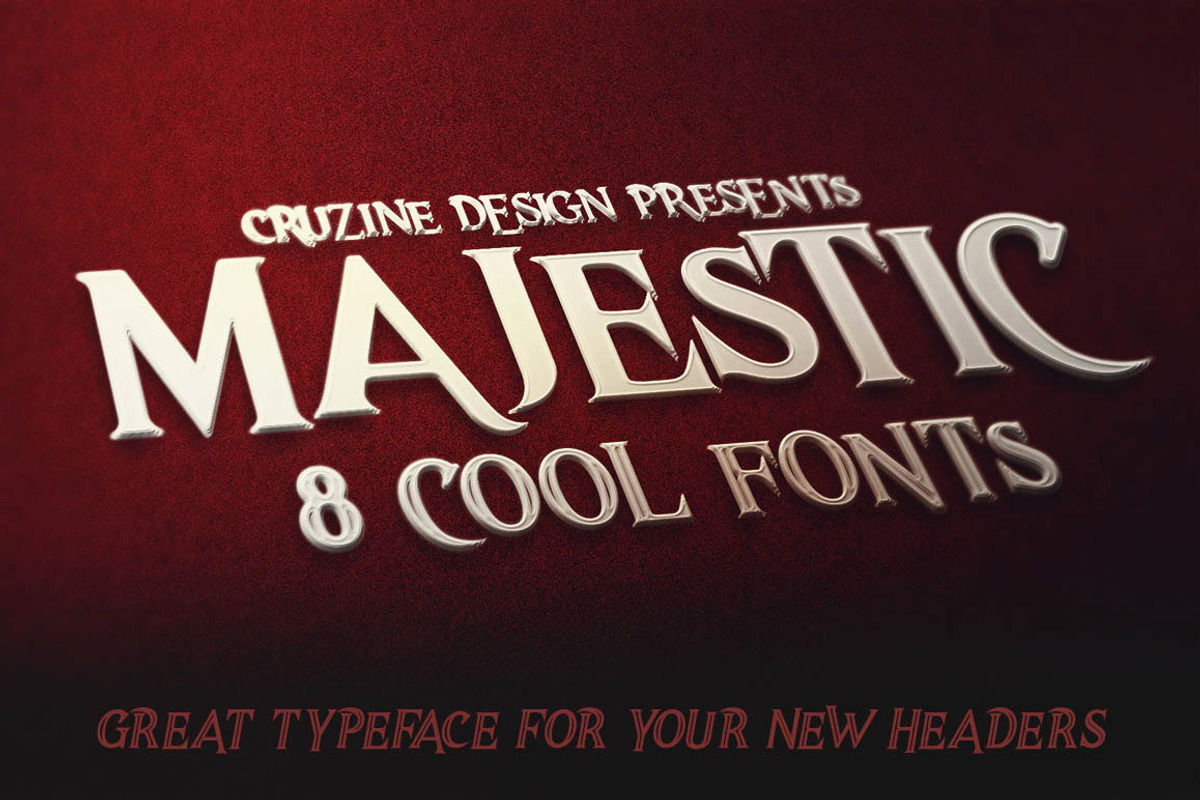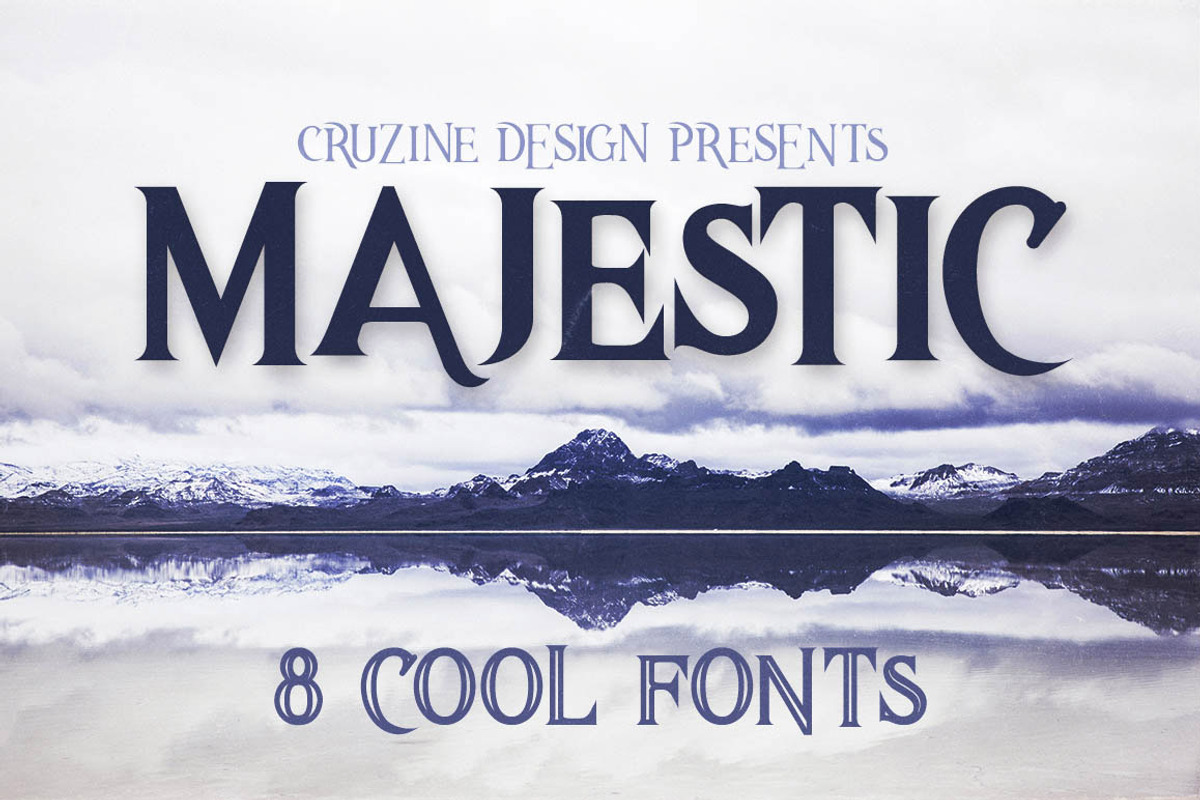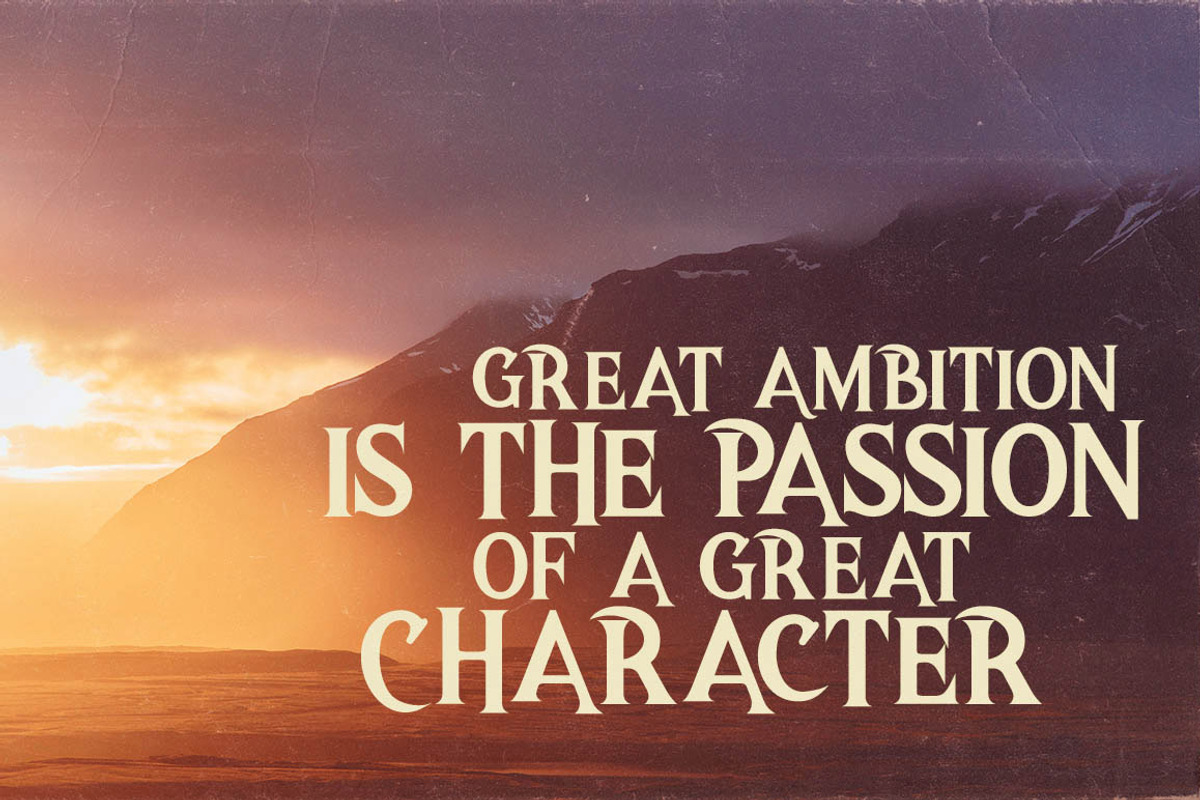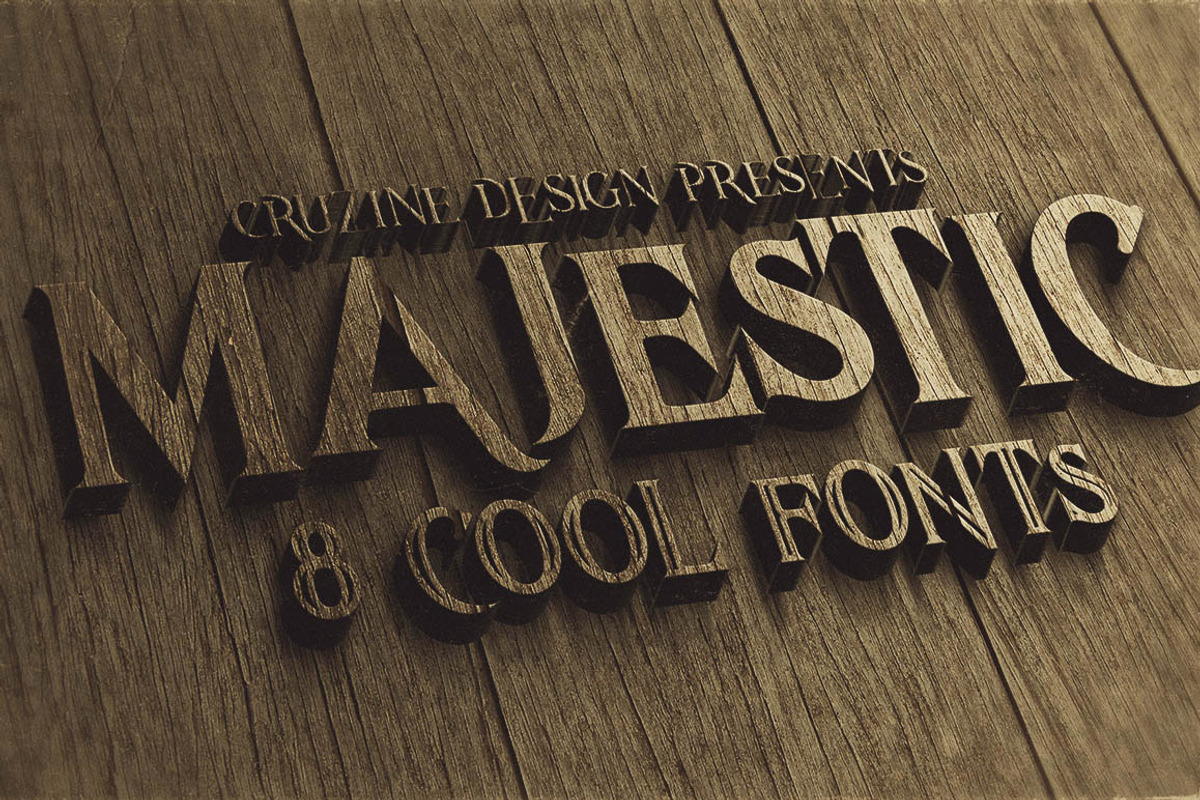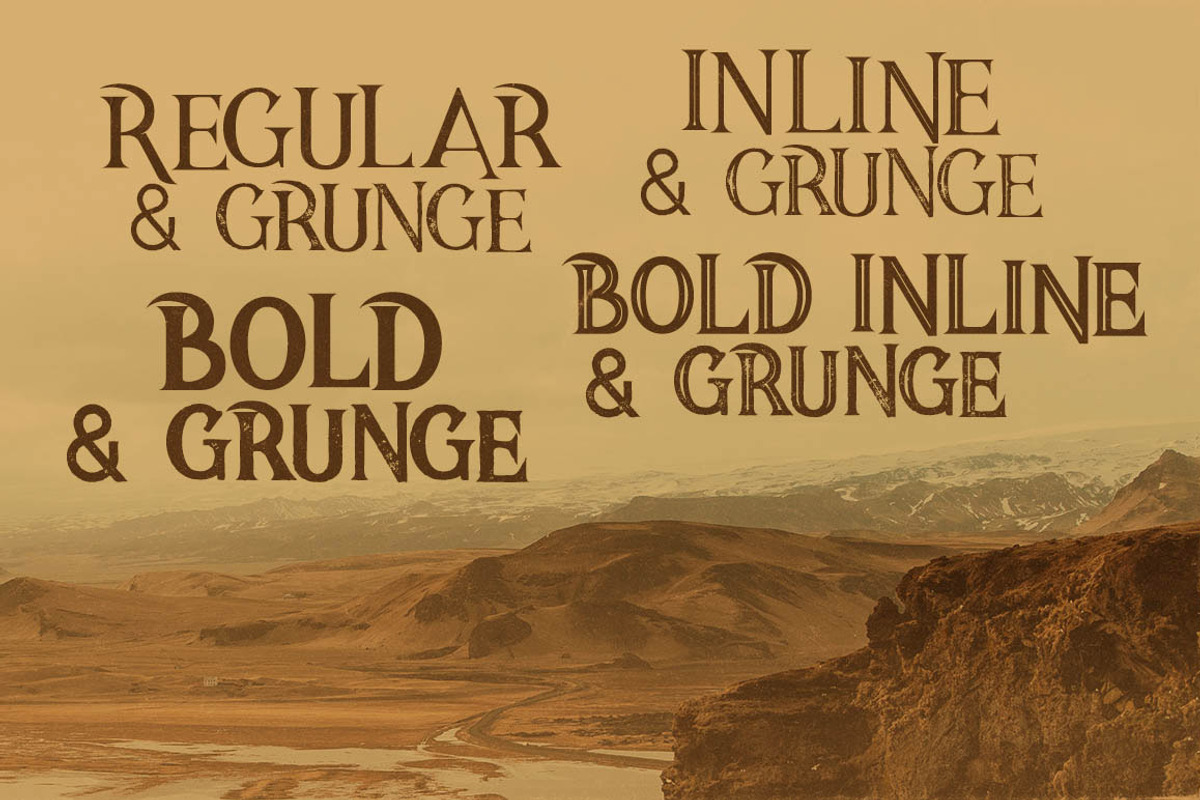
Majestic Typeface
Majestic Typeface by Cruzine is a font selected for branding, posters, packaging, typography.
Why Majestic Typeface is worth a look
Majestic Typeface by Cruzine fits naturally into Branding, posters, packaging, typography.